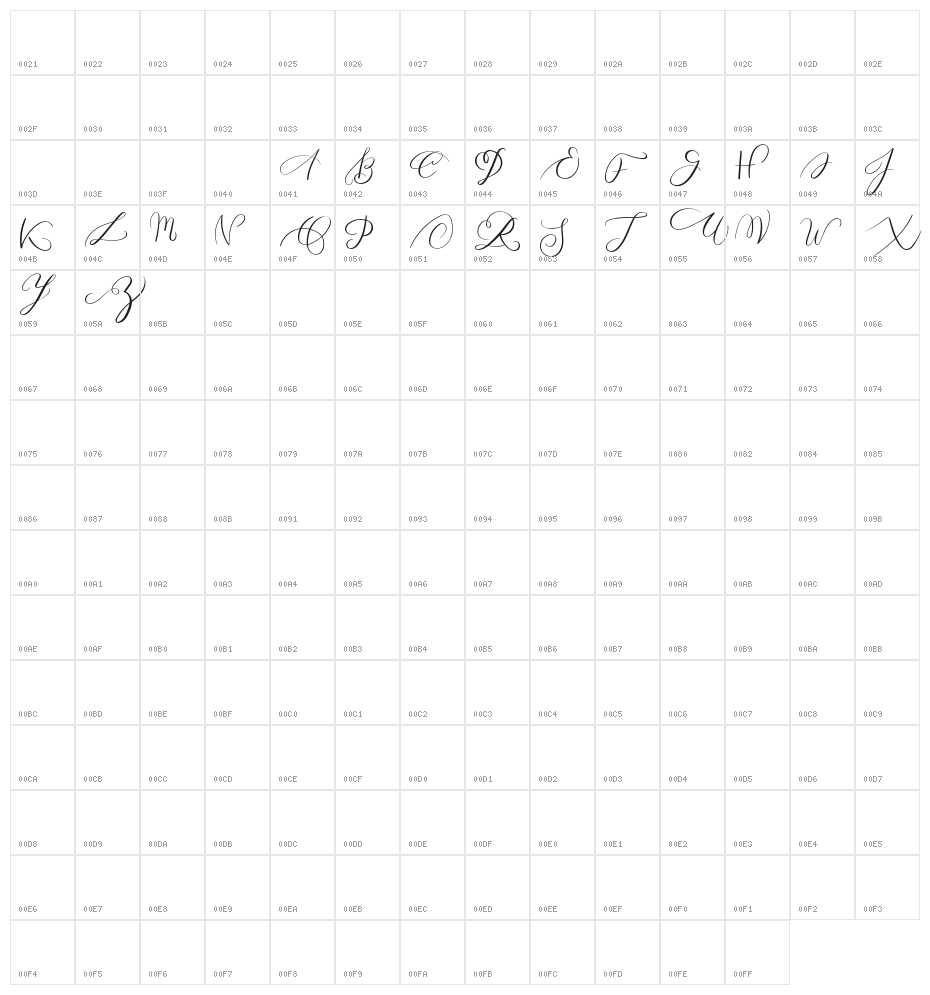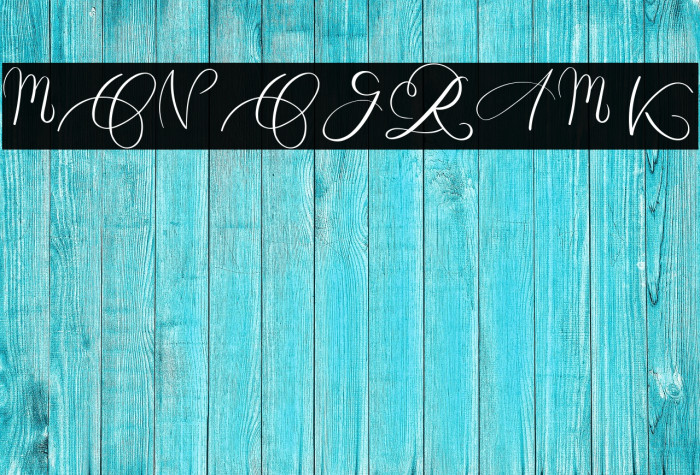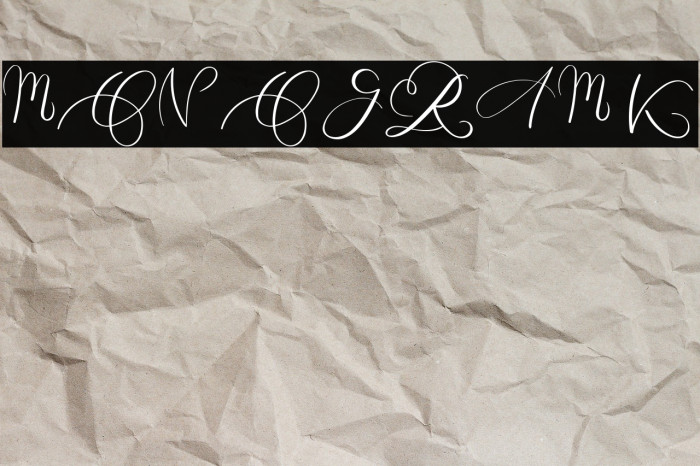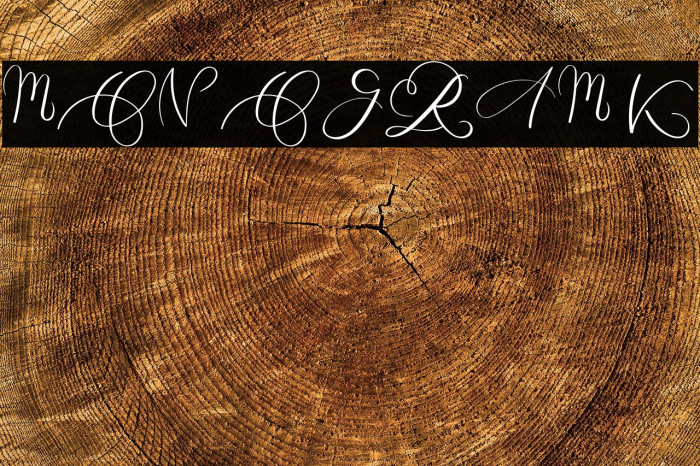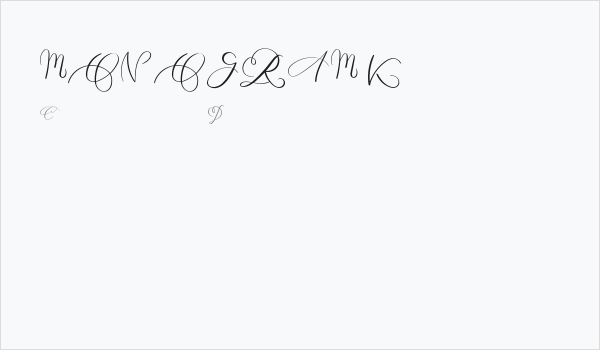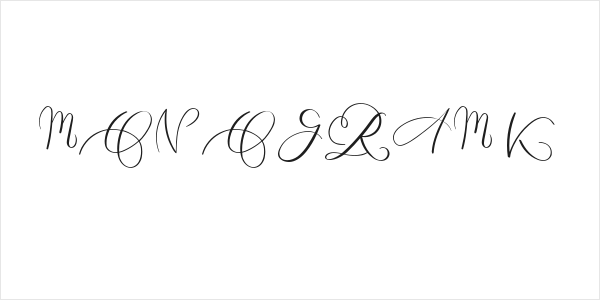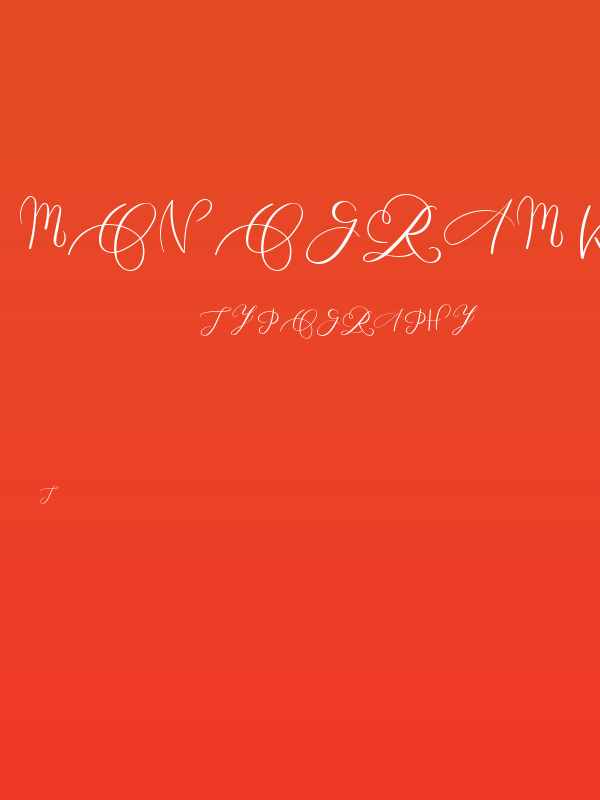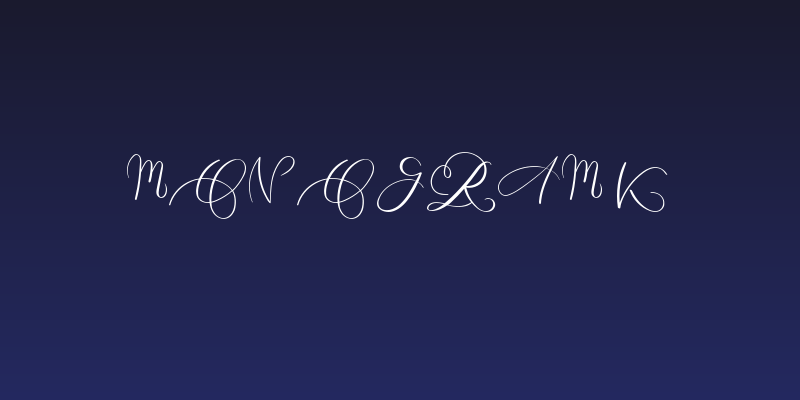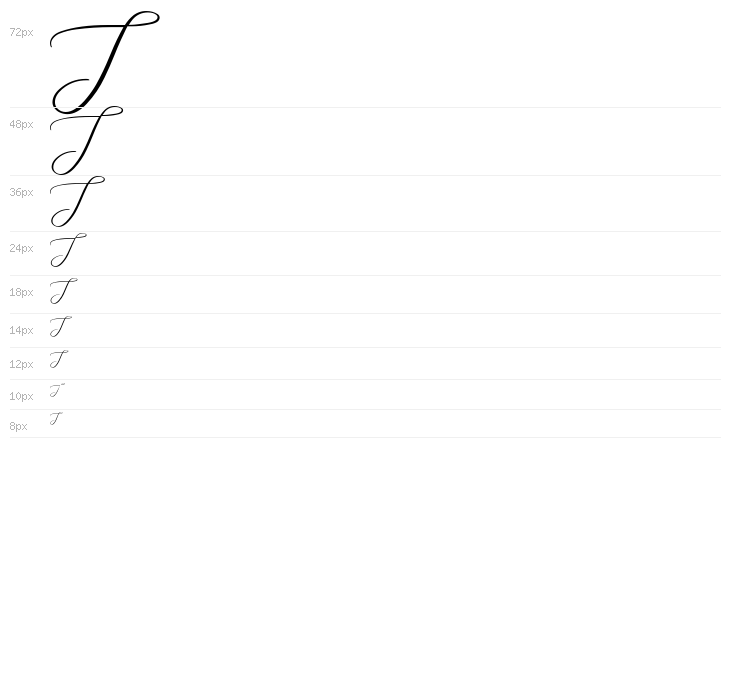
MONOGRAM K Font
MONOGRAM K Description
This font exudes elegance and sophistication, characterized by its intricate and flowing script style. Each letter is crafted with delicate curves and flourishes, creating a sense of movement and grace. The uppercase letters are particularly ornate, with loops and swirls that add a decorative touch. The overall design is reminiscent of classic calligraphy, making it ideal for projects that require a touch of luxury and refinement. The font's thin strokes and high contrast between thick and thin lines enhance its elegant appearance, making it suitable for formal invitations, branding, and high-end product packaging.
| Overall Style | Classic |
| Use Case | Logos, Invitations, Branding |
| Proposed Projects | Ideal for wedding invitations, luxury branding, high-end product packaging, and elegant stationery. |